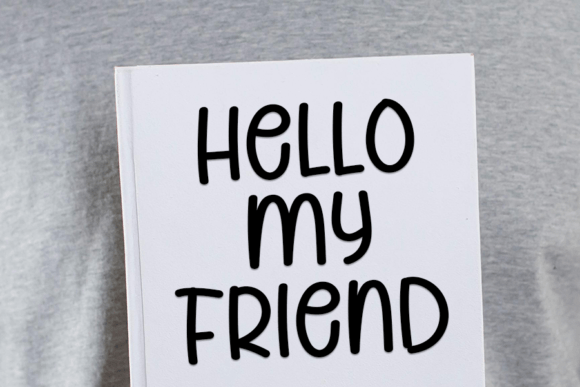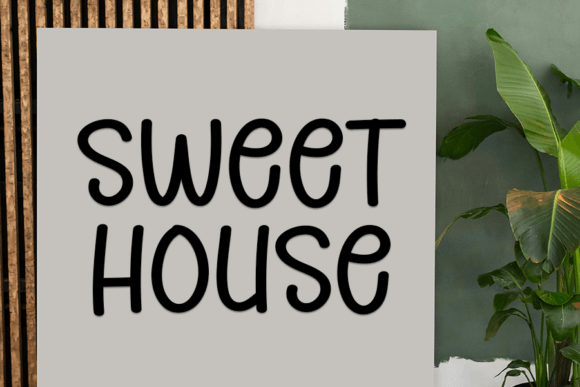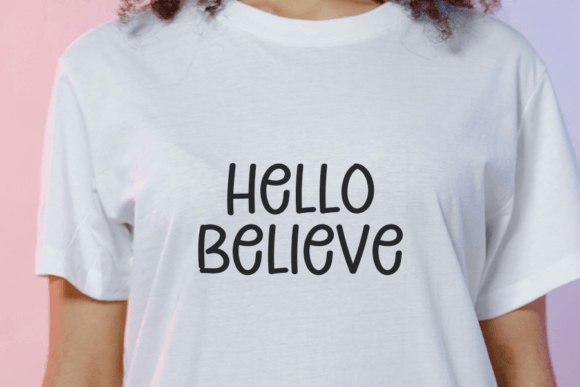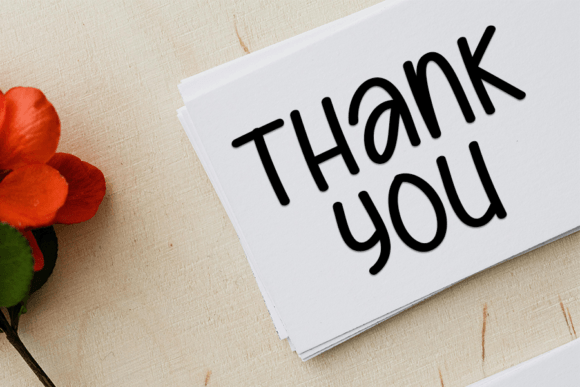
Camping Memories Font: The Perfect Choice for Designers and Crafters
Camping Memories Font is a modern and cool display font that has gained popularity among designers and crafters. Its unique style and versatility make it an ideal choice for various design projects, from crafts and digital design to presentations and greeting cards. In this article, we’ll explore the features and benefits of Camping Memories Font, and why it’s becoming a go-to font for many designers and crafters.
What is Camping Memories Font?
Camping Memories Font is a display font designed to add a personal touch to your designs. Its modern and cool style makes it perfect for creating eye-catching projects that stand out from the crowd. The font is carefully crafted to evoke a sense of adventure and freedom, making it ideal for designs related to outdoor activities, travel, and nature.
Key Features of Camping Memories Font
- Unique Style: Camping Memories Font has a distinctive style that sets it apart from other fonts. Its modern and cool design makes it perfect for creating unique and eye-catching projects.
- Versatility: This font is highly versatile and can be used for various design projects, including crafts, digital design, presentations, and greeting cards.
- High-Quality: The font is designed with high-quality and precision, ensuring that it looks great in any design project.
Benefits of Using Camping Memories Font
Camping Memories Font offers several benefits to designers and crafters. Some of the benefits include:
- Time-Saving: With Camping Memories Font, you can save time and effort in creating unique and eye-catching designs. The font is designed to be easy to use, allowing you to focus on other aspects of your design project.
- Customization: Camping Memories Font can be customized to fit your design needs. You can adjust the font size, color, and style to match your brand or design theme.
Use Cases for Camping Memories Font
Camping Memories Font can be used for various design projects, including:
- Crafts: Use Camping Memories Font to create unique and personalized crafts, such as handmade cards, gift tags, and scrapbook pages.
- Digital Design: This font is perfect for digital design projects, such as social media graphics, blog posts, and website headers.
- Presentations: Add a personal touch to your presentations with Camping Memories Font. It’s perfect for creating eye-catching slides and handouts.
- Greeting Cards: Use Camping Memories Font to create personalized and unique greeting cards for special occasions.
Tips for Using Camping Memories Font
Here are some tips for using Camping Memories Font:
- Experiment with Different Sizes: Try using different font sizes to create visual interest and hierarchy in your design.
- Pair with Other Fonts: Pair Camping Memories Font with other fonts to create a unique and interesting combination.
- Use in Combination with Images: Use Camping Memories Font in combination with images to create a visually appealing design.
Camping Memories Font is a modern and cool display font that’s perfect for designers and crafters. Its unique style, versatility, and ease of use make it an ideal choice for various design projects. Whether you’re creating crafts, digital design, presentations, or greeting cards, Camping Memories Font has the potential to be your go-to font. With its high-quality design and customization options, this font is sure to become a favorite among designers and crafters.